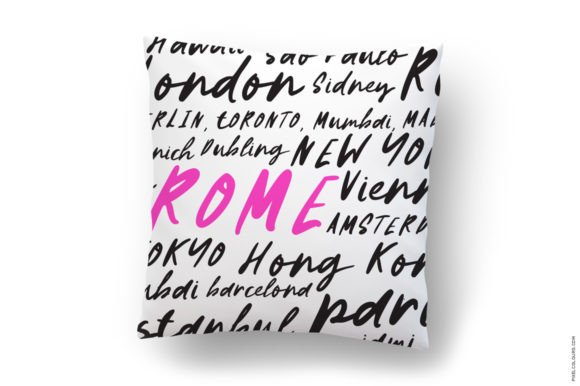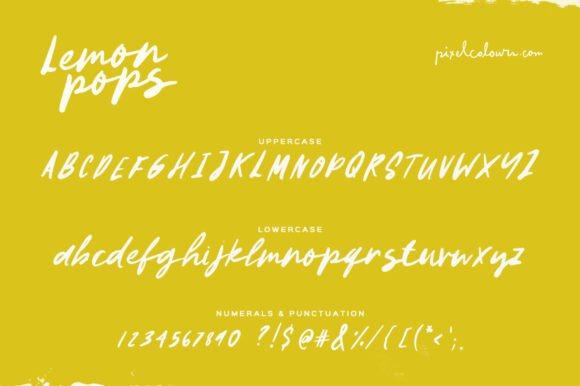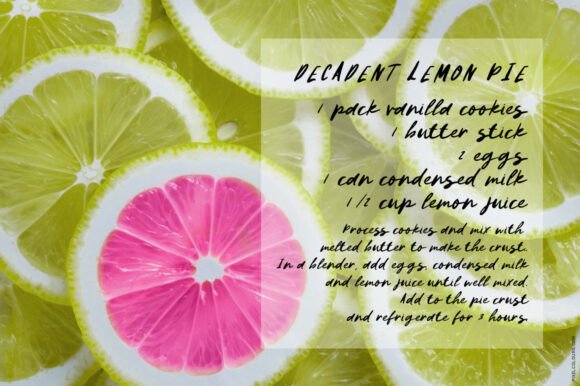
Introduction to Lemon Pops Font
A handwritten, freestyle font great for informal designs that need a handmade look.
Combine fun colors and create social media posts, greeting cards, tshirts, mugs, stickers, etc .
Key Features of Lemon Pops Font
Why Choose Lemon Pops Font?